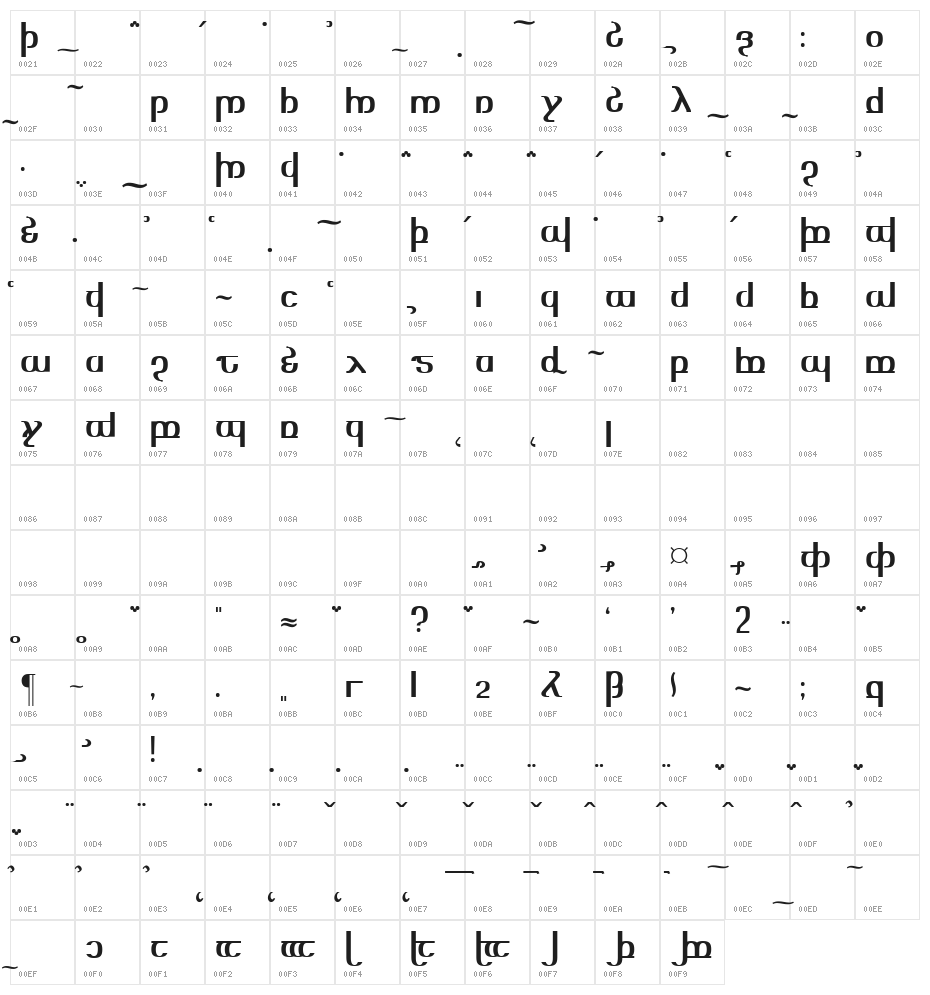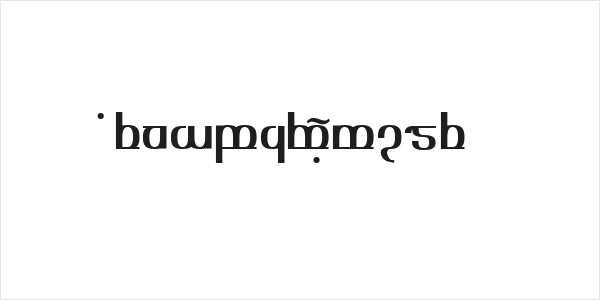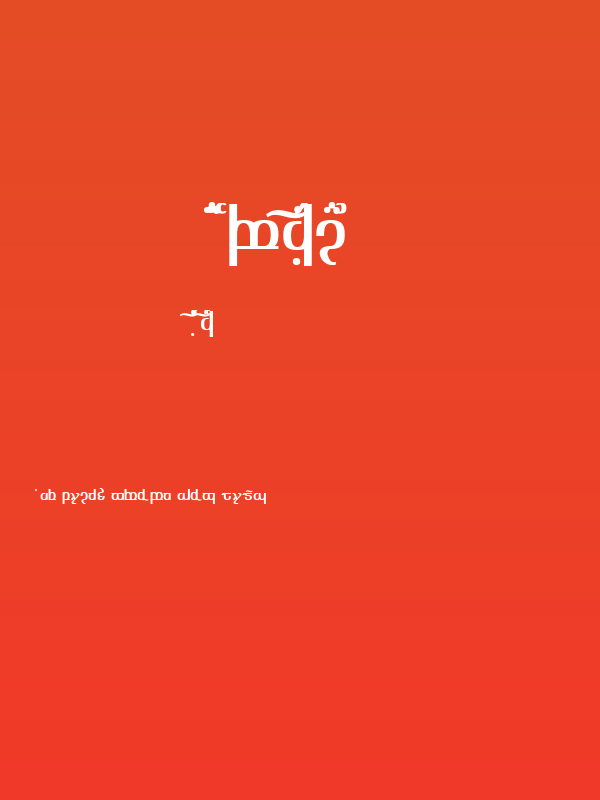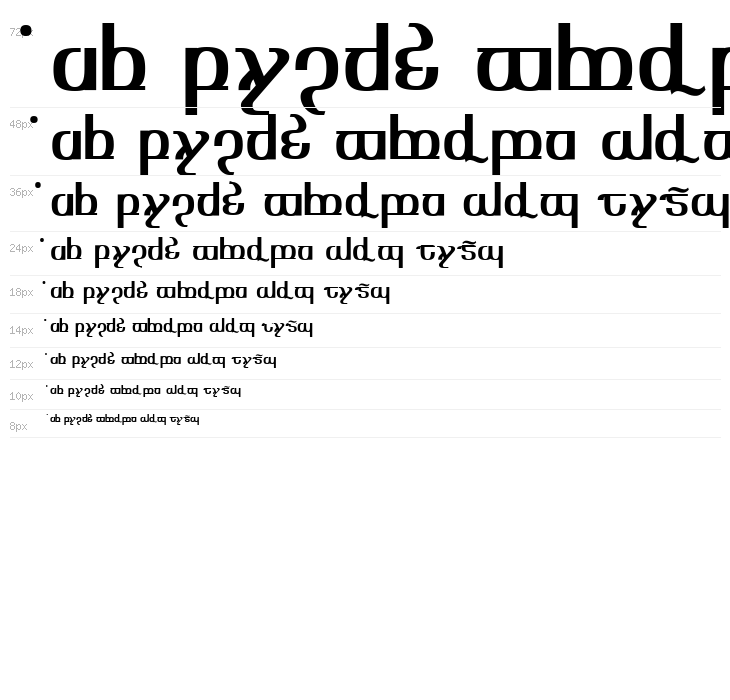
TengwarOptime Font
TengwarOptime Description
This font is a decorative script inspired by the Tengwar script from J.R.R. Tolkien's Middle-earth legendarium. It features intricate, flowing characters with a distinct fantasy aesthetic. The letters are adorned with unique flourishes and curves, giving it an ornate and mystical appearance. The font is designed to mimic the elegant and ancient feel of Elvish writing, with a focus on artistic expression rather than readability. It is ideal for projects that require a touch of fantasy or a connection to Tolkien's works.
| Overall Style | Fantasy, Decorative |
| Use Case | Logos, Titles, Decorative text |
| Proposed Projects | Ideal for fantasy-themed projects, book covers, game designs, and fan art related to Tolkien's works. |